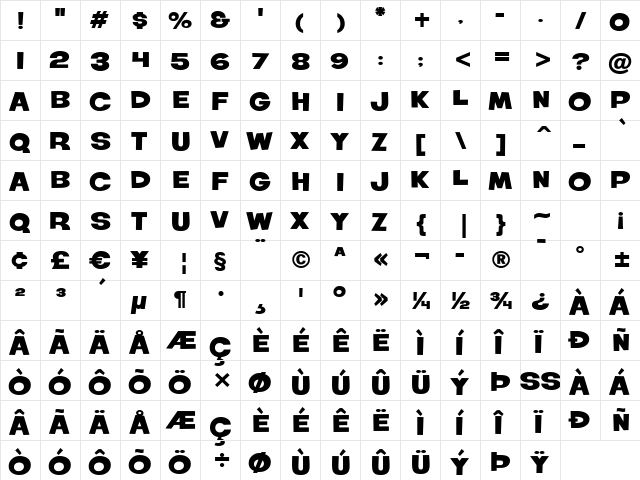
Roller World BTN Wide Bold
Design Context for Roller World BTN Wide Typeface
Roller World BTN Wide is a composed and adaptable typeface that performs quietly and consistently across a wide range of design contexts. Its bold stroke weight gives it real presence on the page.